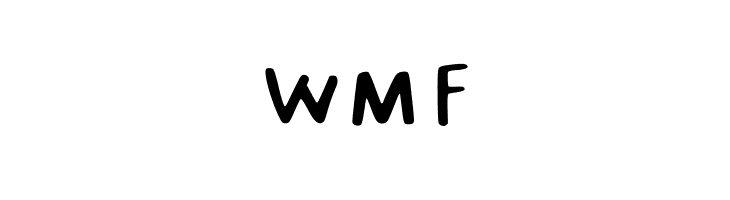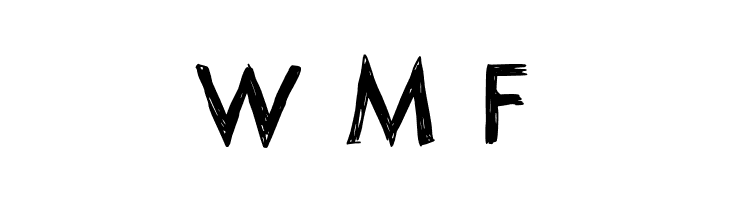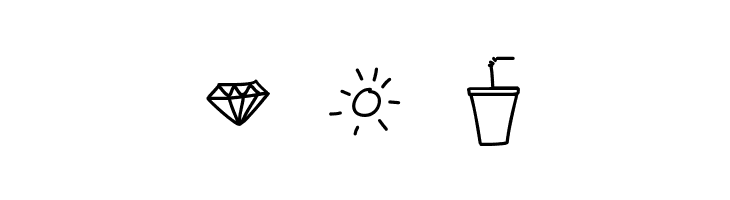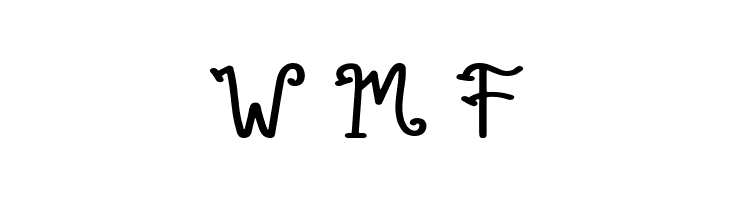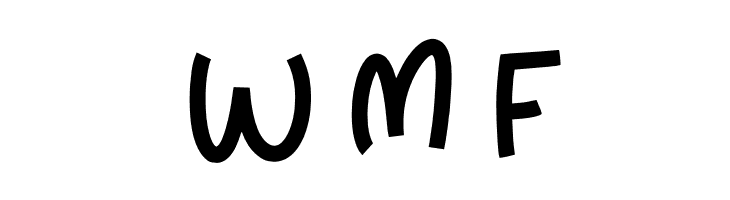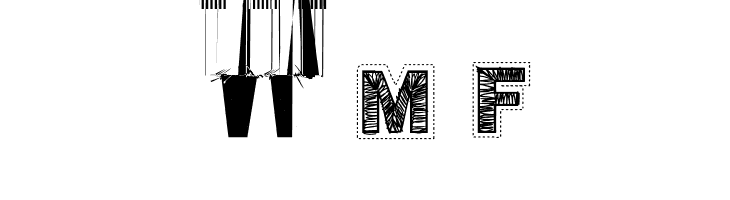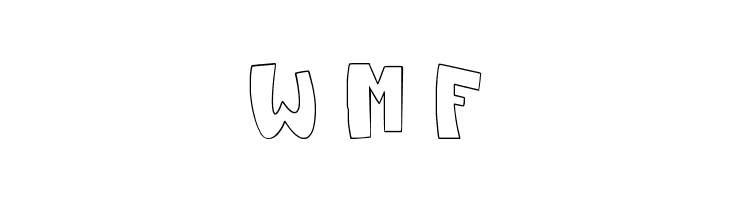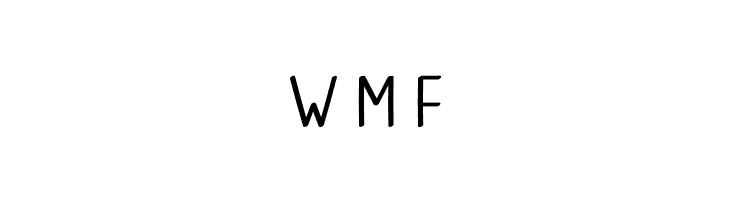
A playful, stitched-style font with bold, rounded characters.
A playful, hand-drawn font with tall, narrow letters and a whimsical style.
A playful handwritten font with rounded, dynamic strokes.
A playful, handcrafted font with bold, irregular strokes and a whimsical style.
A decorative font with a cross-stitch pattern, ideal for crafty designs.
A playful, hand-drawn font with a sketch-like appearance and uneven strokes.
A playful, rounded font with a hand-drawn feel.
A playful set of hand-drawn doodles with a whimsical, sketch-like style.
A playful, hand-drawn font with a whimsical and casual style.
A playful, handwritten font with curly, decorative strokes.
A playful, stitched outline font with bold, rounded characters.
A bold, handcrafted font with a playful, cut-out style.
A doodle and graffiti-inspired decorative font with playful illustrations.
A playful, bold, and hand-drawn style font with rounded letterforms.
A playful, casual handwritten font with rounded, smooth letterforms.
A playful, hand-drawn script font with whimsical decorative elements.
A decorative font with a needlework-inspired, stitched appearance.
A playful, stitched decorative font with bold, rounded characters.
A decorative font with a cross-stitch pattern, ideal for festive and creative designs.
A pixelated, cross-stitch style font with a handcrafted, decorative look.
A decorative font with a cross-stitch pattern, offering a handcrafted and artistic look.
A playful, outlined font with bold, rounded characters perfect for creative projects.
A playful, hand-drawn font with a casual and whimsical style.
A minimalist, hand-drawn font with a rustic farmhouse charm.
A playful, handwritten font with rounded, consistent strokes and a casual feel.
A playful, handwritten font with tall, narrow letters and a casual style.
A playful, handcrafted cursive font with a rustic charm.
Playful handwritten script font.